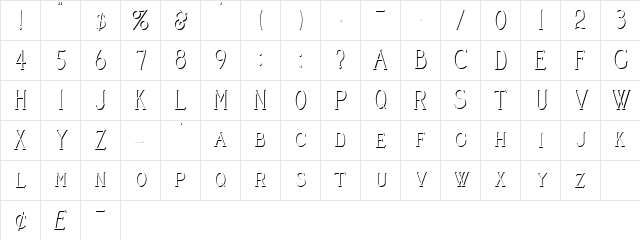
Cleaver's_Juvenia_Embossed Regular
Design Context for Cleaver's_Juvenia_Embossed Typeface
Cleaver's_Juvenia_Embossed takes a measured approach to typography — its balanced proportions and neutral character make it a reliable workhorse for both digital and print work.